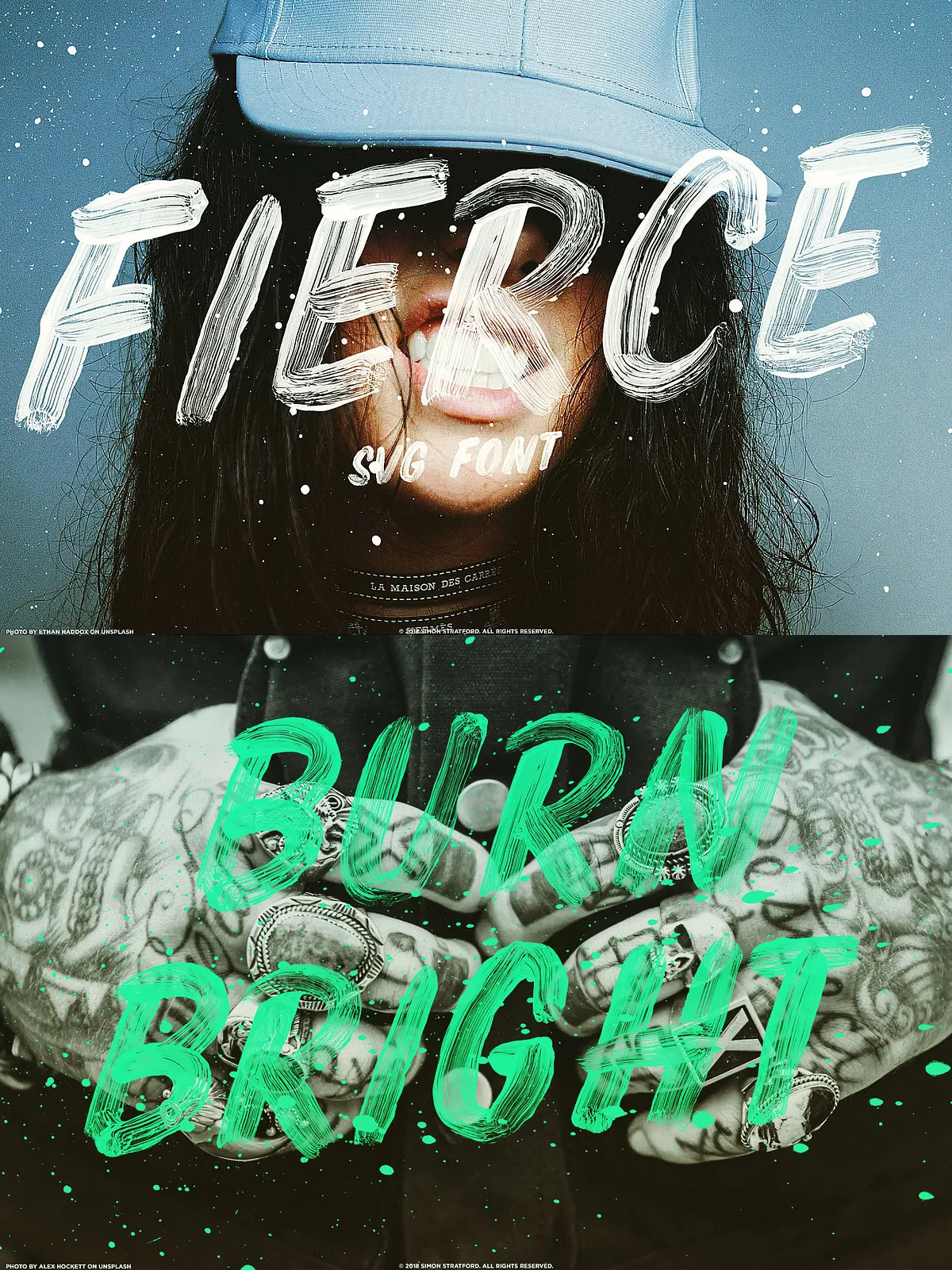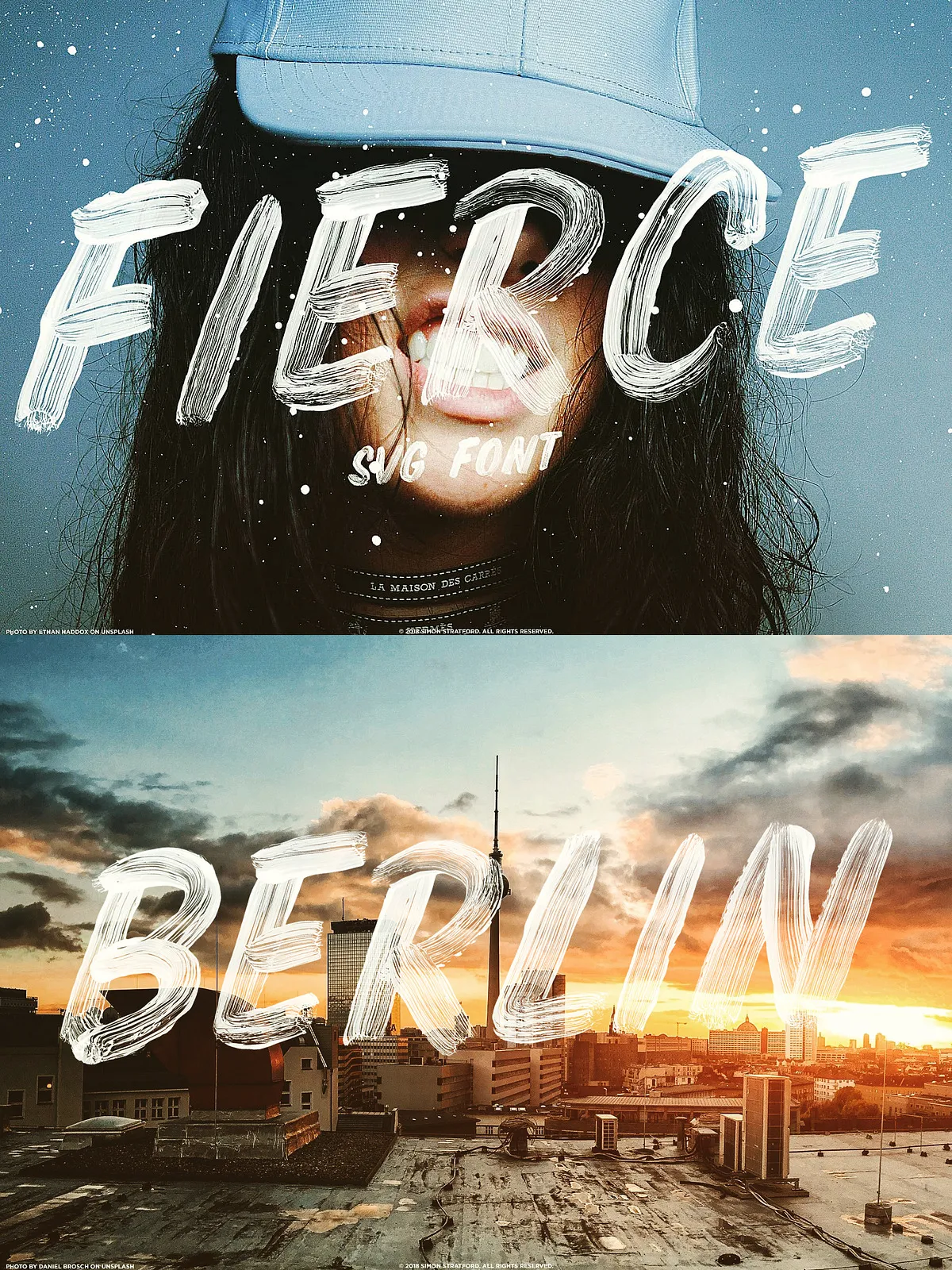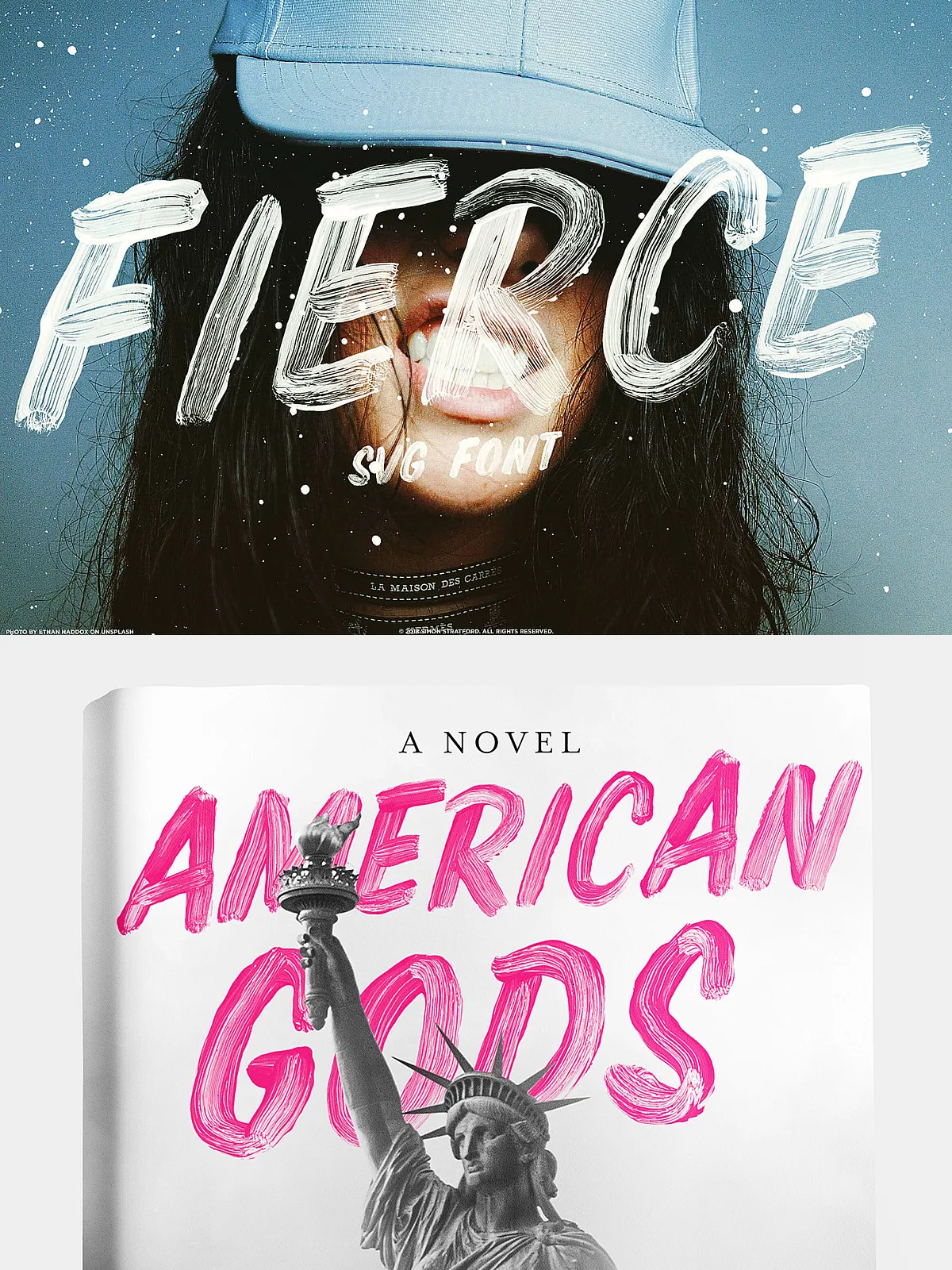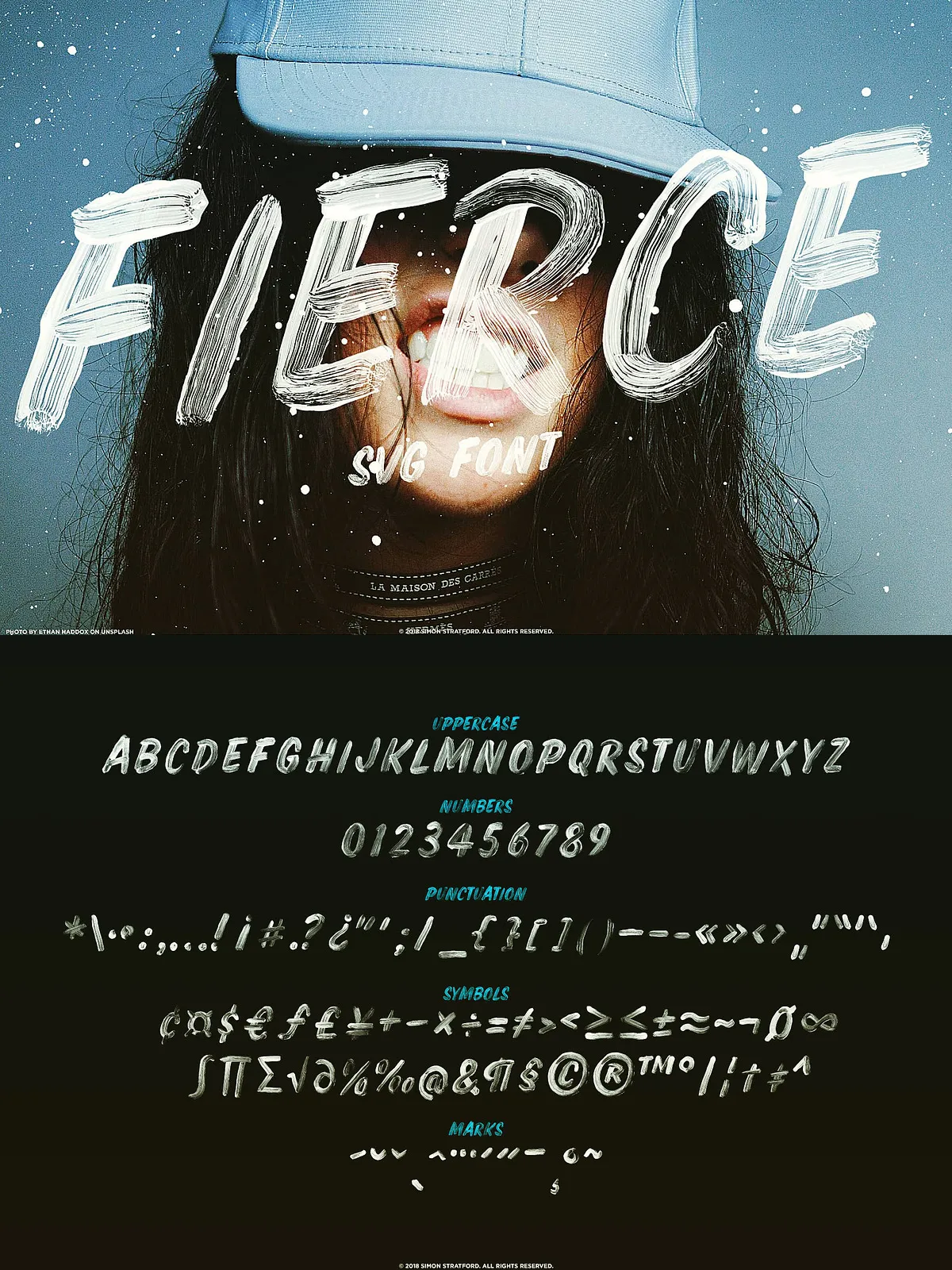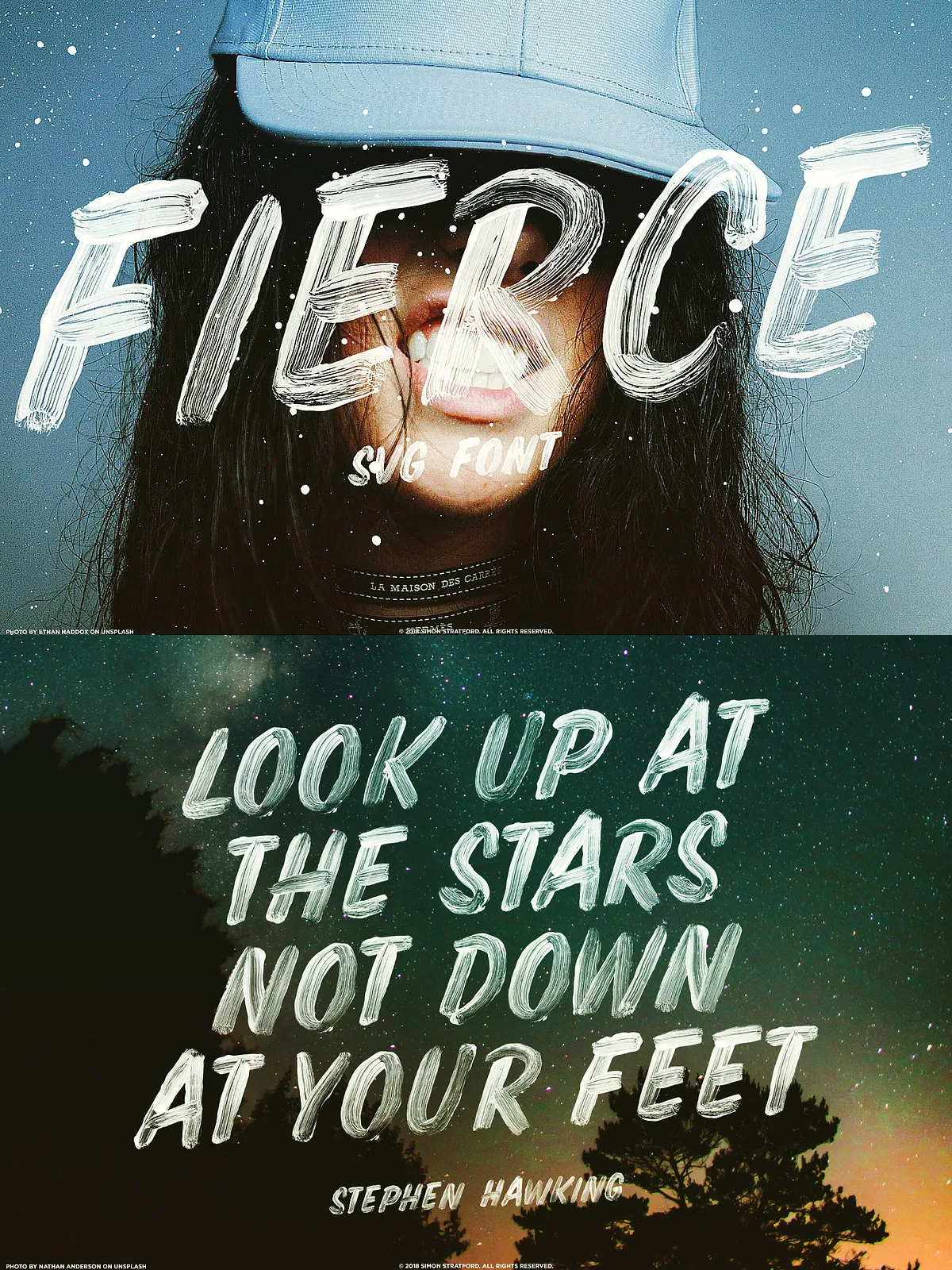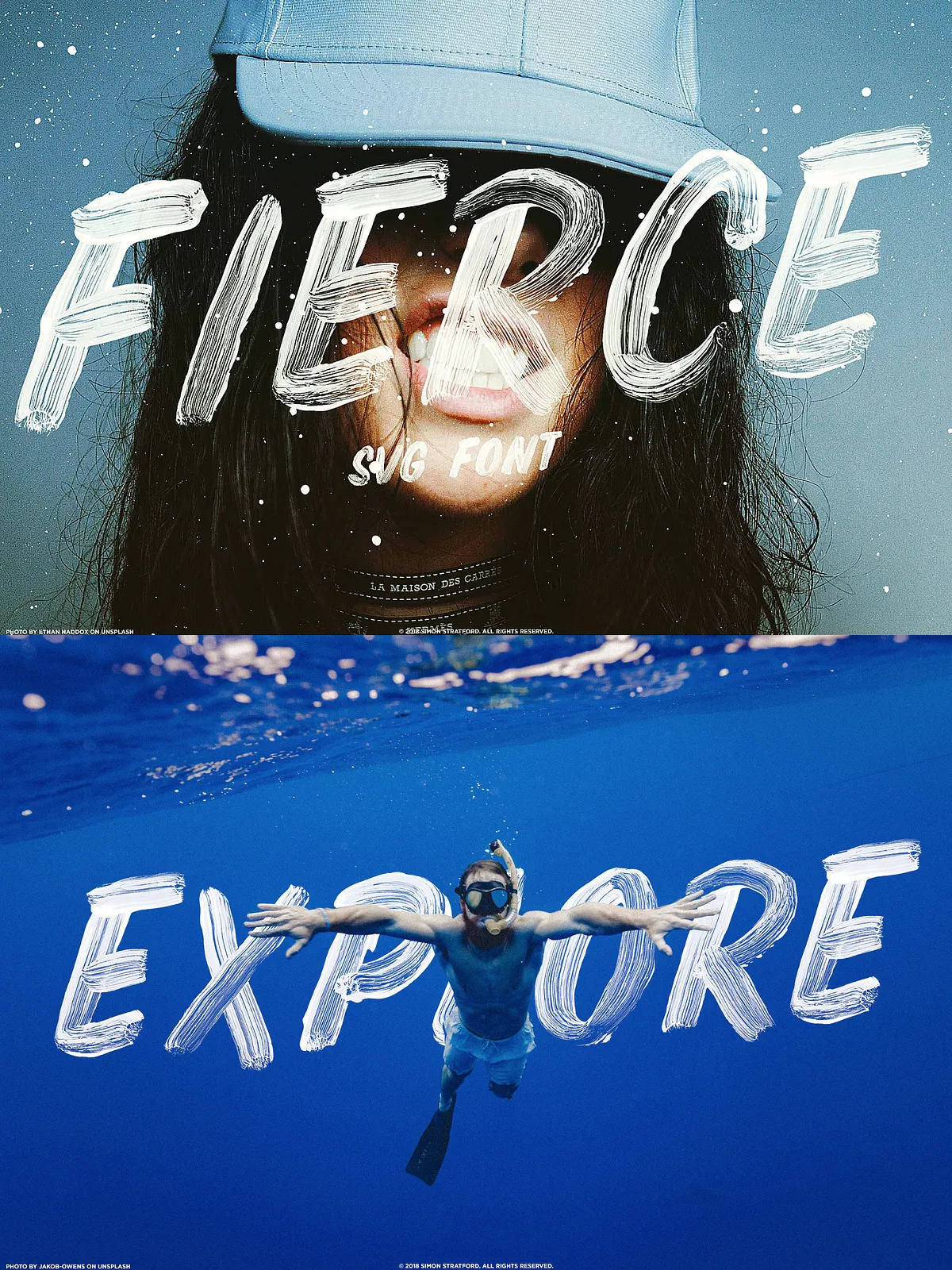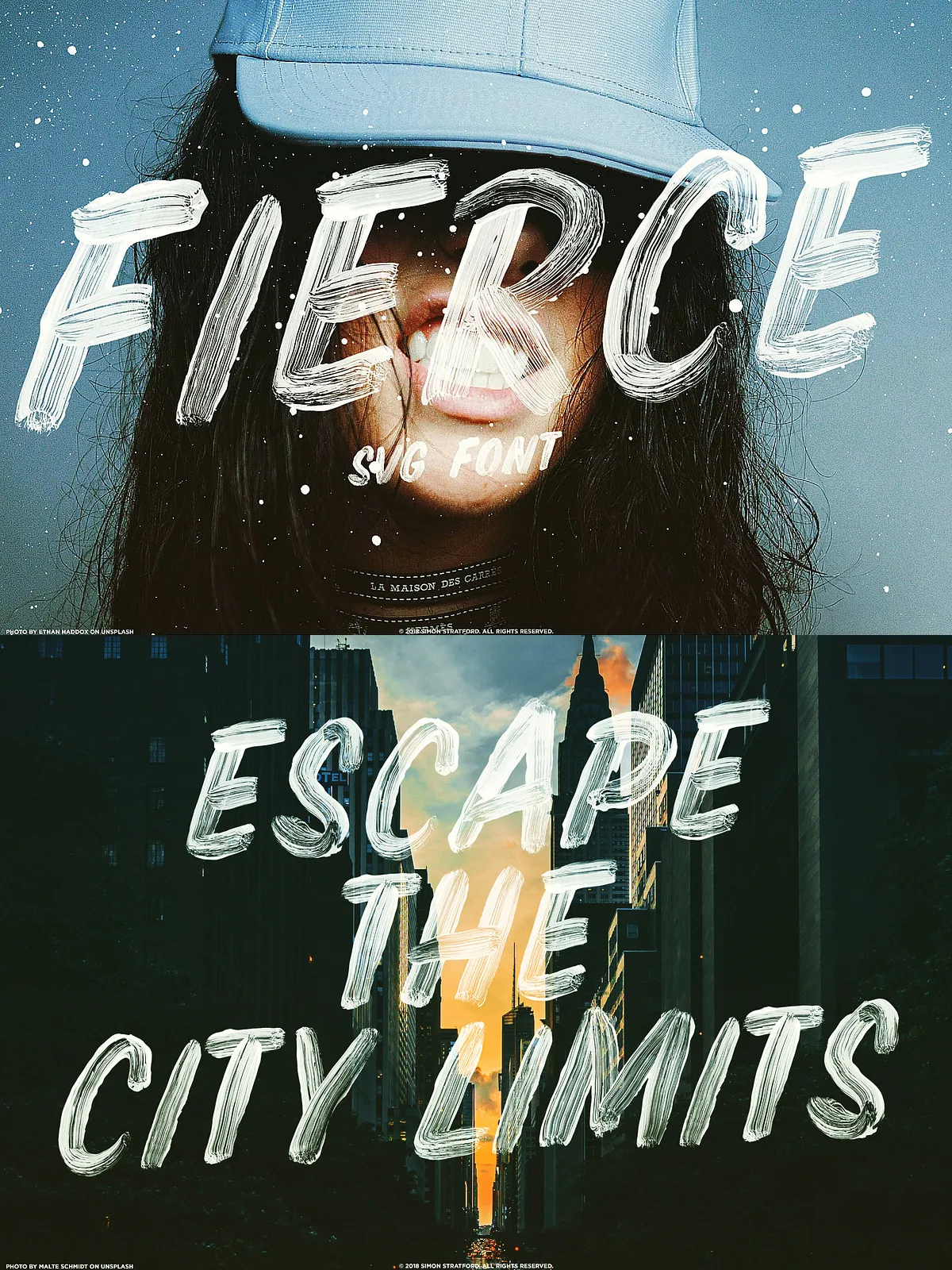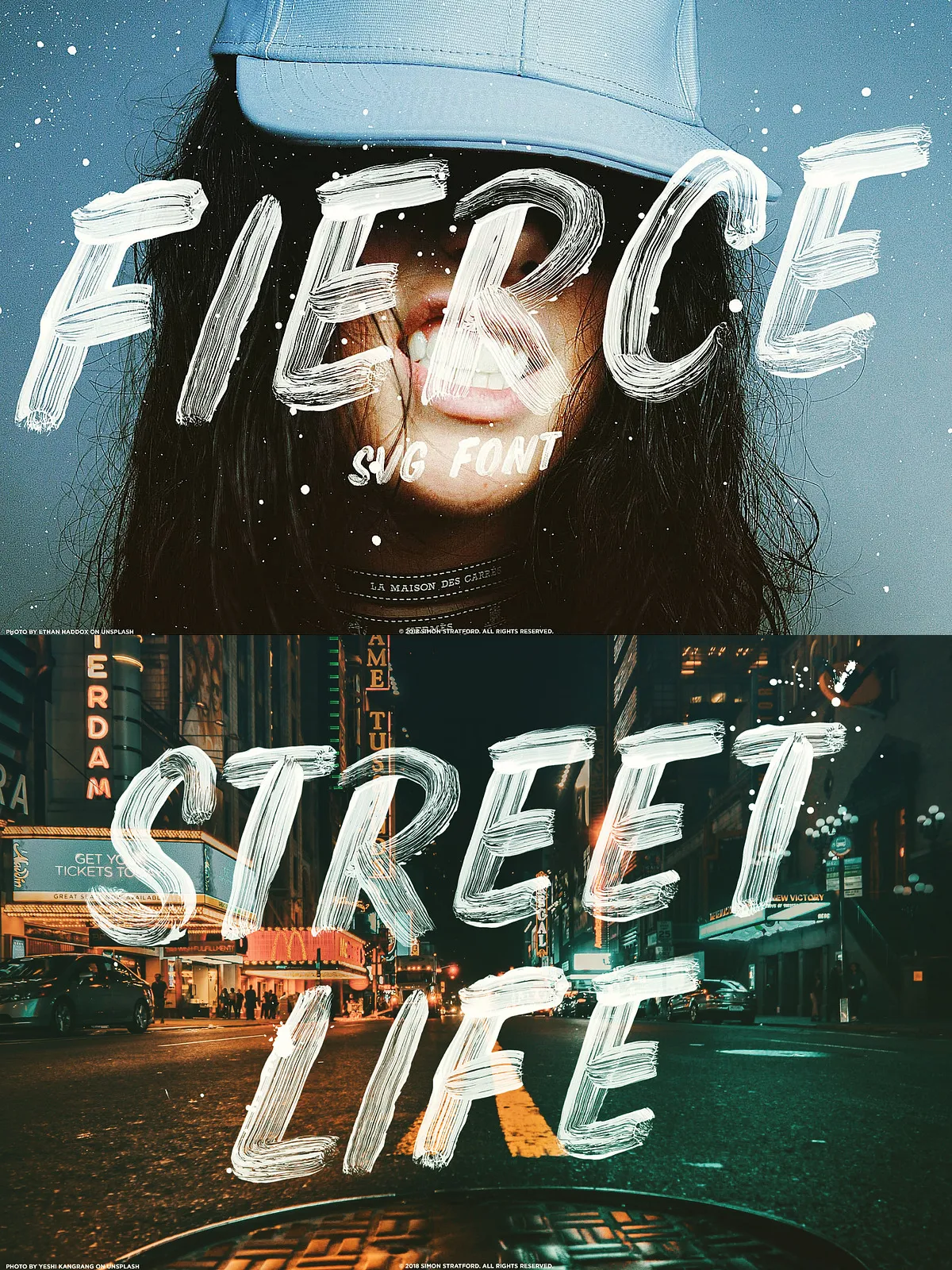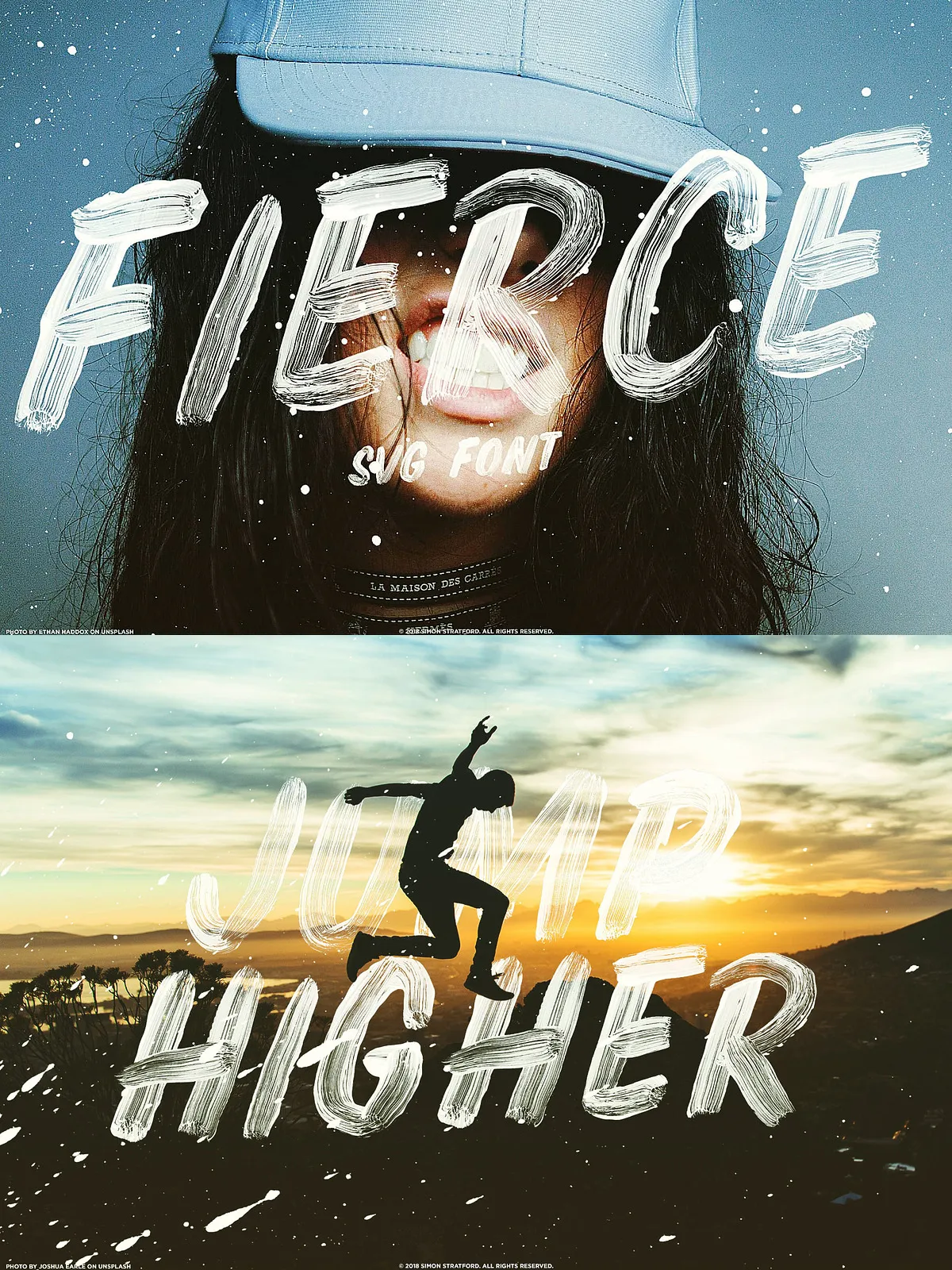
Display Font Fierce
Fierce is bold brush script font (OpenType-SVG), created with acrylic paint on transparency film. This gives it a level of detail that you just can’t get with a traditional vector typeface. The paint almost looks a dry brush because you can see each and every stroke.
Brush Script font
It’s a big and brash brush script display font, with a slight punk attitude. Would be perfect for posters, packaging, advertising, headlines, branding, signage and anything where you want that urban look and feel.
If this font were a band it would be more The Ramones than Rebecca Black. It’s quite shouty like a Friday night out on the town—Partyin’, partyin’ Fun, fun, fun, fun!
Cutting Edge
Want Extra Grunge?
Vector Typeface included
I have also converted the font to a traditional black and white typeface that will work on Windows and Mac in any application.
A-Z uppercase letters (unicase font, it has no lowercase letters)
A-Z uppercase letters